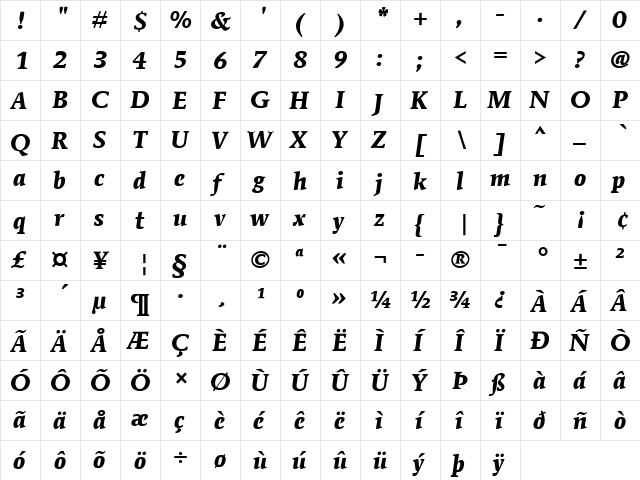
Mendoza Roman ITC Roman Bold Italic
Design Context for Mendoza Roman ITC Typeface
Mendoza Roman ITC offers clean, dependable letterforms without strong stylistic allegiance, making it a practical choice for designers who need flexibility. The dynamic lean of this cut emphasises speed and emphasis in any layout. Its bold stroke weight gives it real presence on the page.
Pro Tip: Use Mendoza Roman ITC for emphasis, pull quotes, and subheadings where its slanted energy can add rhythm to the layout.